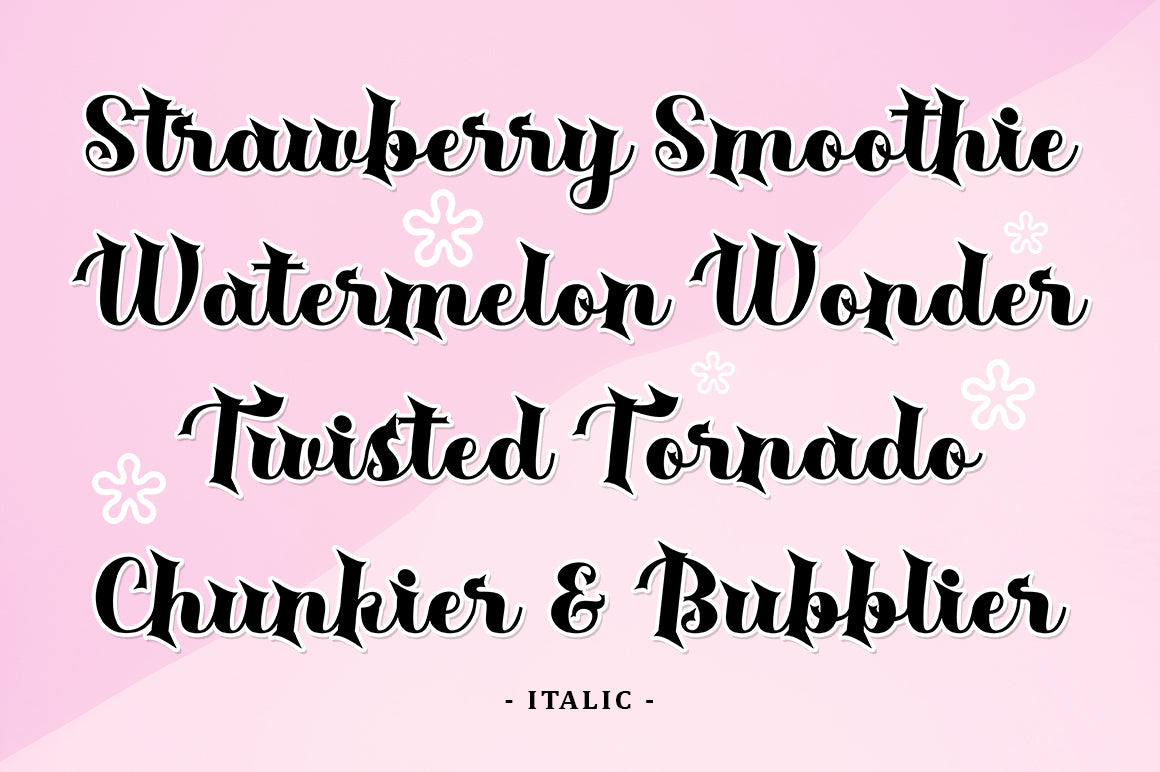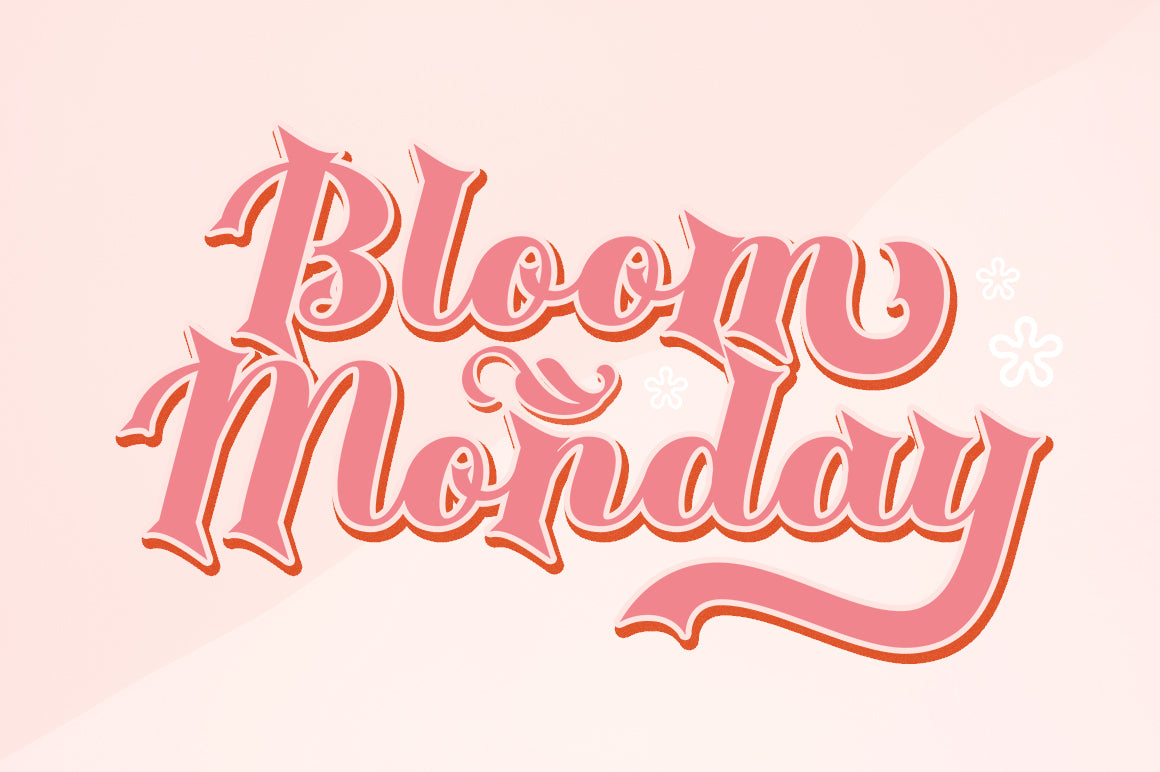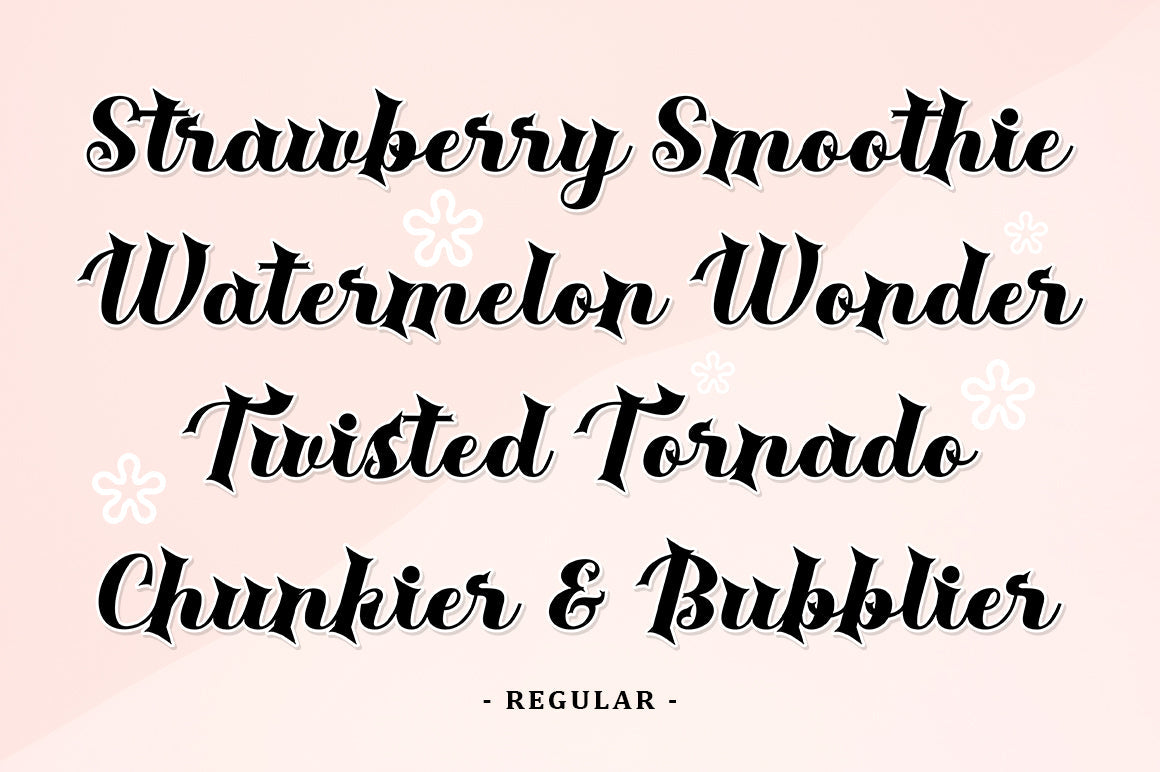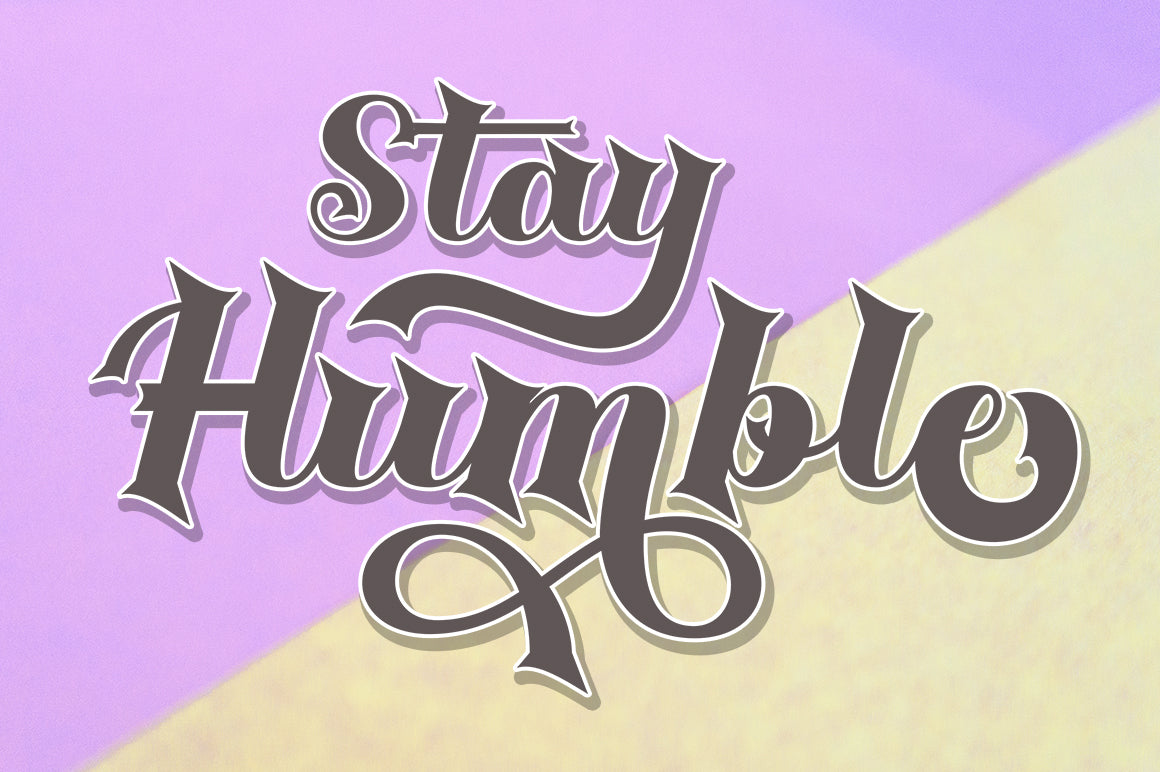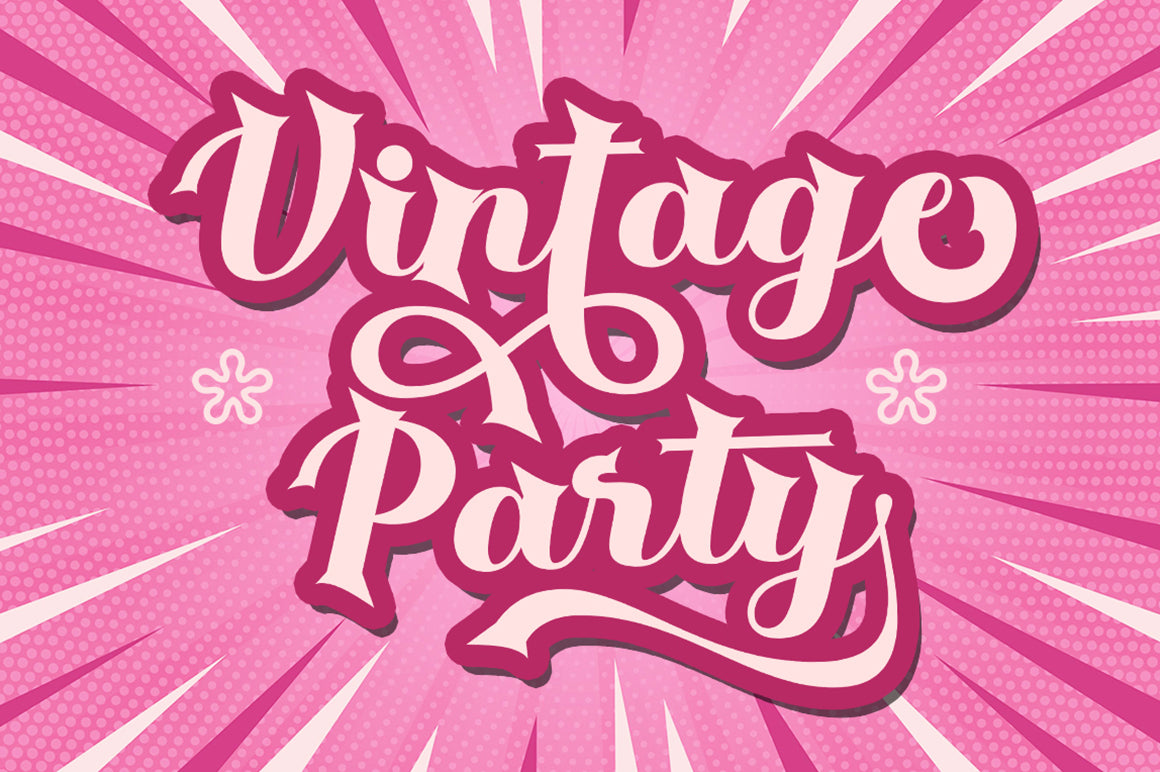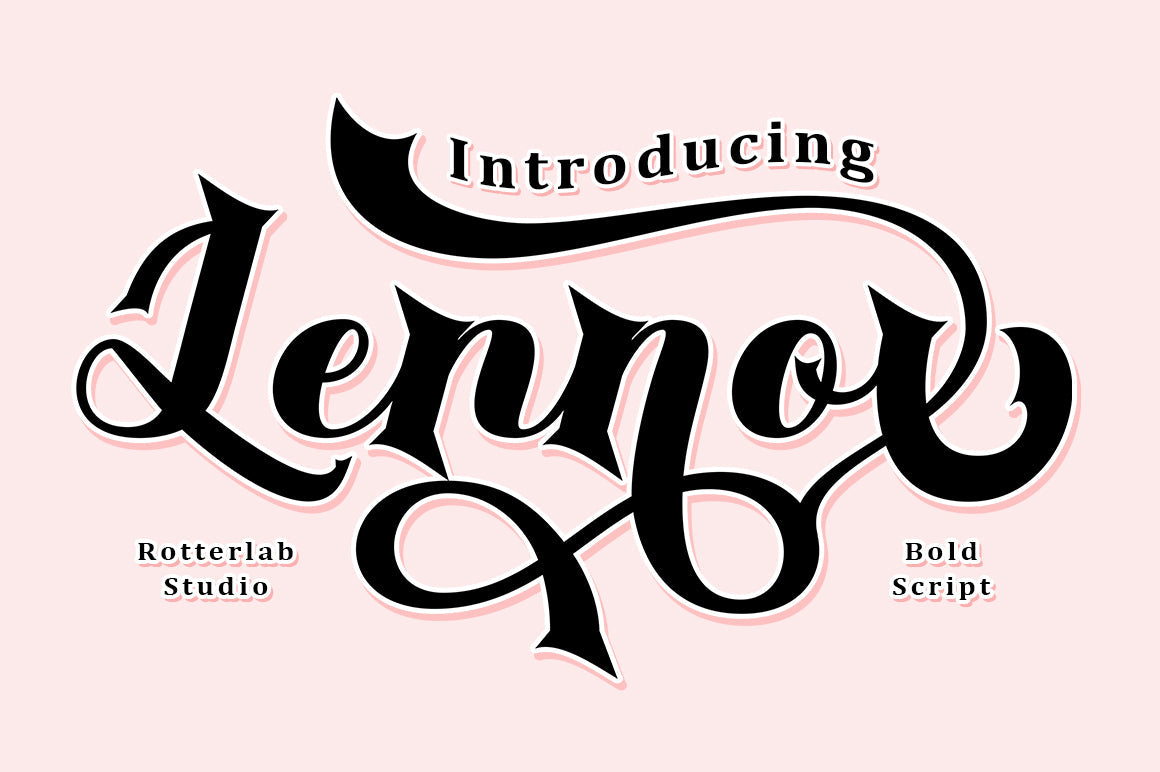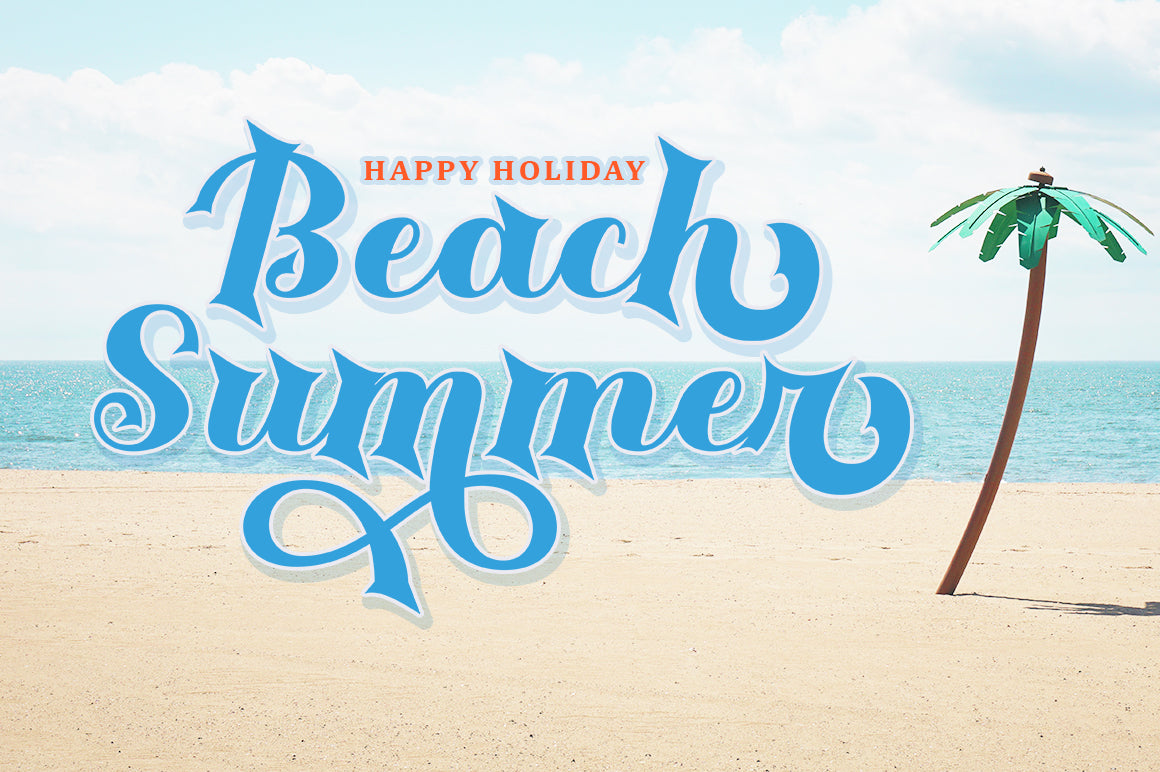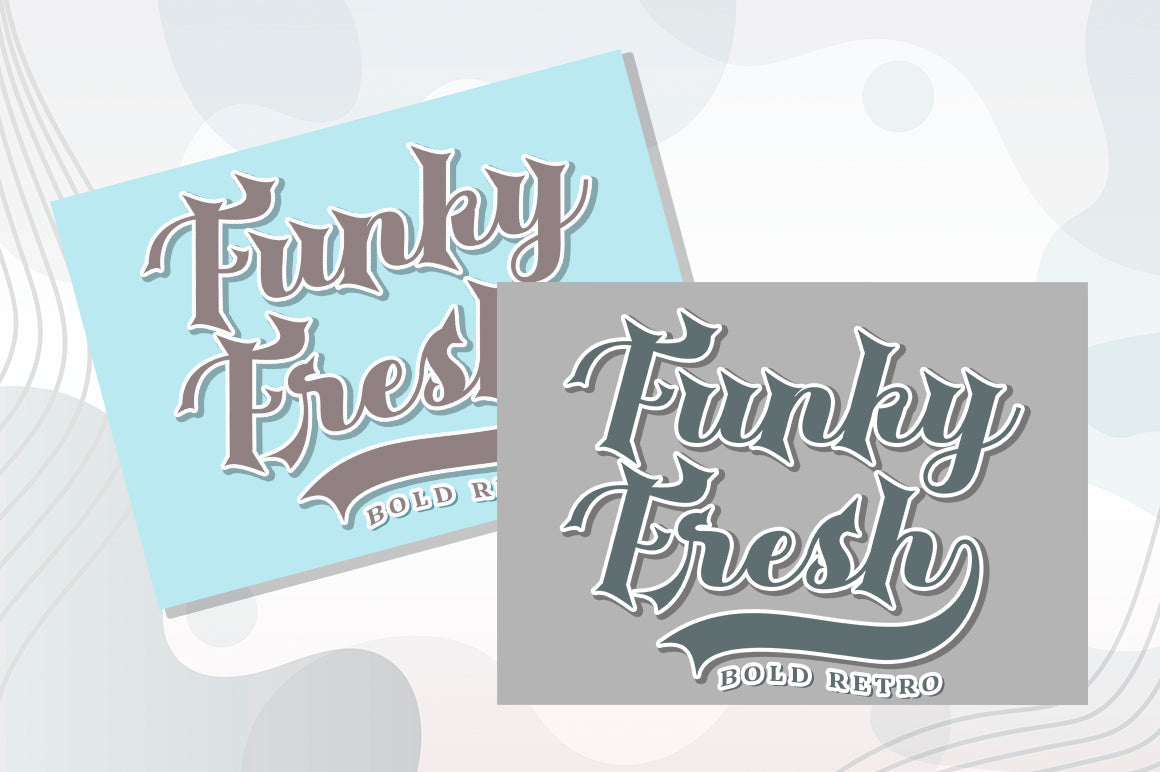
Lennox | Vintage Script Font
About Lennox | Vintage Script Font
Lennox fonts. This font is a handwritten font style inspired by the sport of baseball. This font has many alternative characters that you can use to enhance your creative work. This font is great for displaying with a combination of vintage, hipster, retro, Logo and a stylish look. Lennox Font is designed with multiple precision layers to ensure the perfect look, Lennox Font is great for Logotypes, Advertising, Namecards, Posters, Flyers, Cards and more. Make Lennox a part of your creative projects and make it even more fun! Lennox Features: A complete set of upper & lower case characters Numbers & punctuation fastener Wash Multilingual symbol PUA Coded Characters – Fully accessible without additional design software. Feel free to message me if you have any problems or questions. Thank you so much for taking the time to look at one of our products. Thank You…